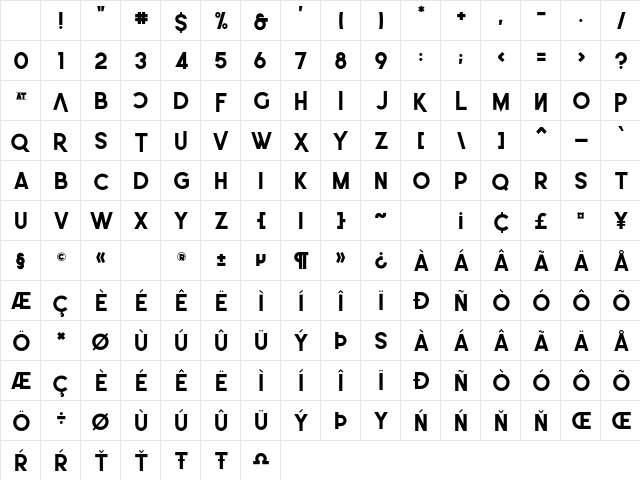
Complete LEonardo-Demo Bold glyph index. Displaying only characters natively supported by LEonardo-Demo Bold font.
LEonardo-Demo is a composed and adaptable typeface that performs quietly and consistently across a wide range of design contexts. Its bold stroke weight gives it real presence on the page.